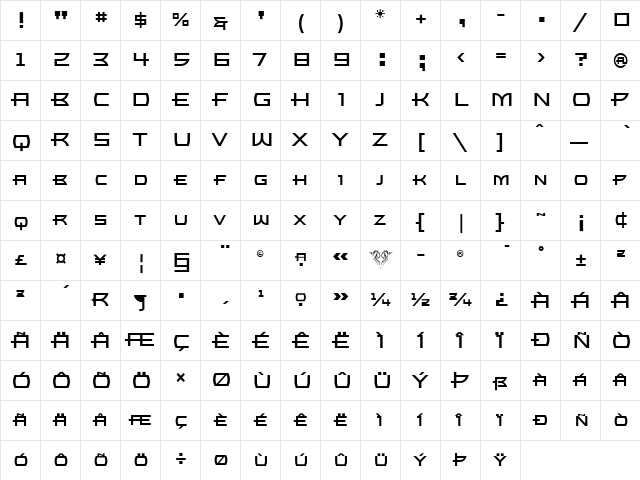
Bronzo Regular
Design Context for Bronzo Typeface
Bronzo offers clean, dependable letterforms without strong stylistic allegiance, making it a practical choice for designers who need flexibility.
Pro Tip: Pair Bronzo with a font of contrasting weight or personality to build a more expressive typographic hierarchy.